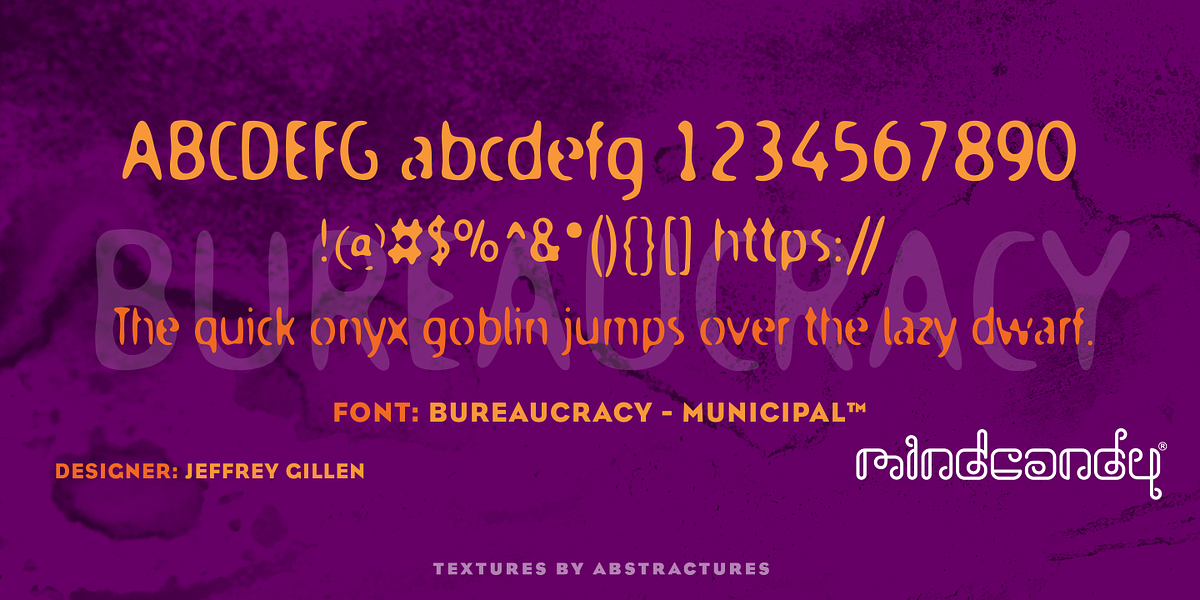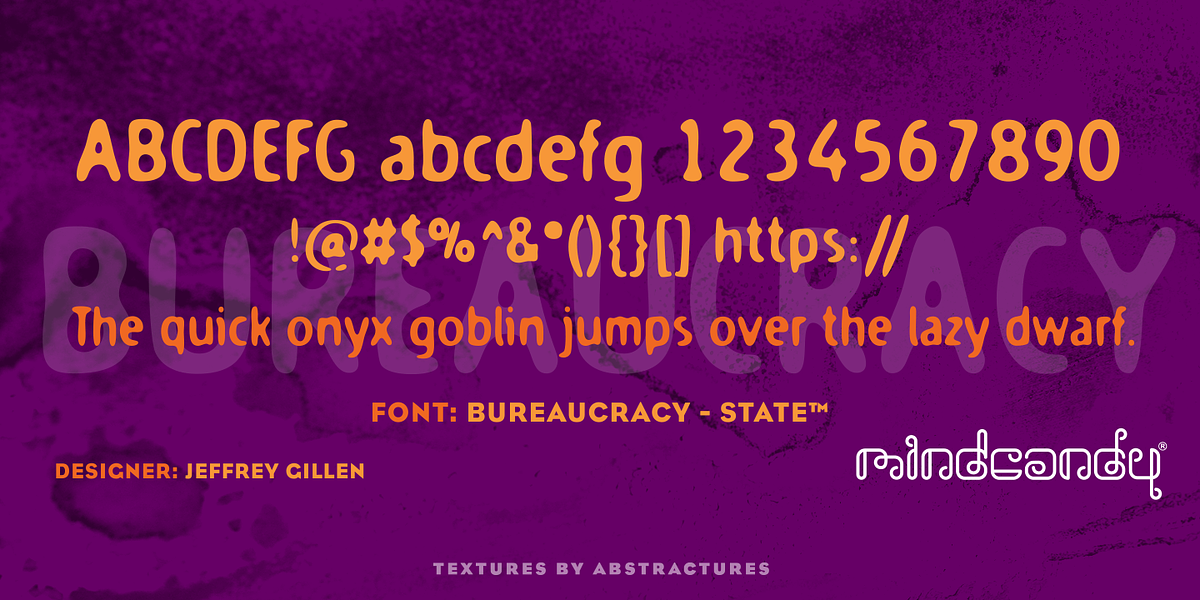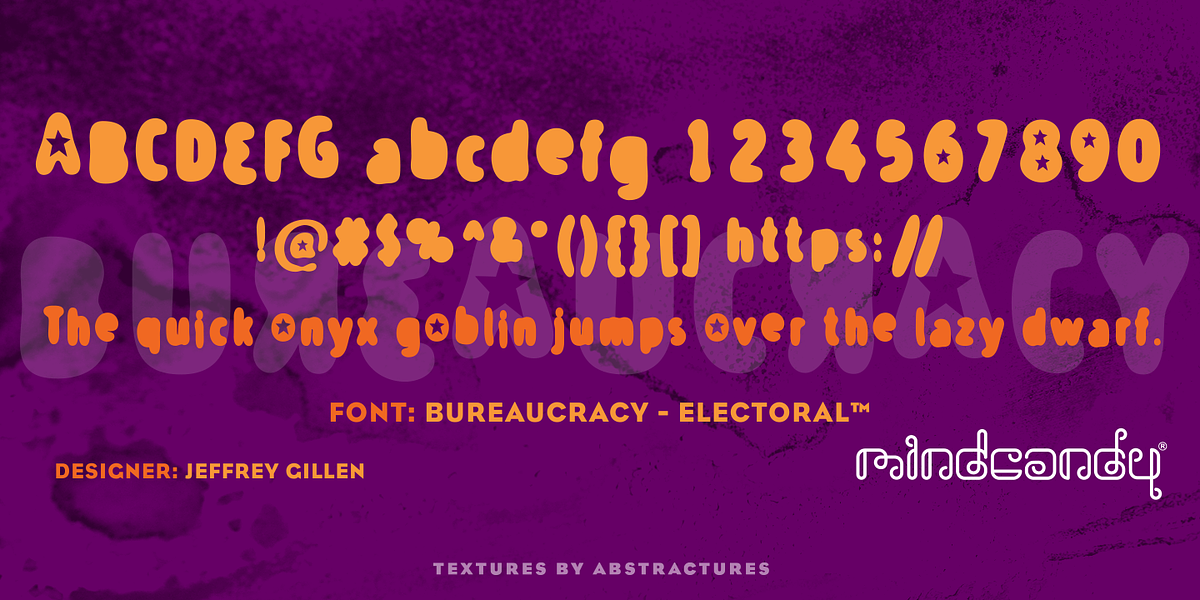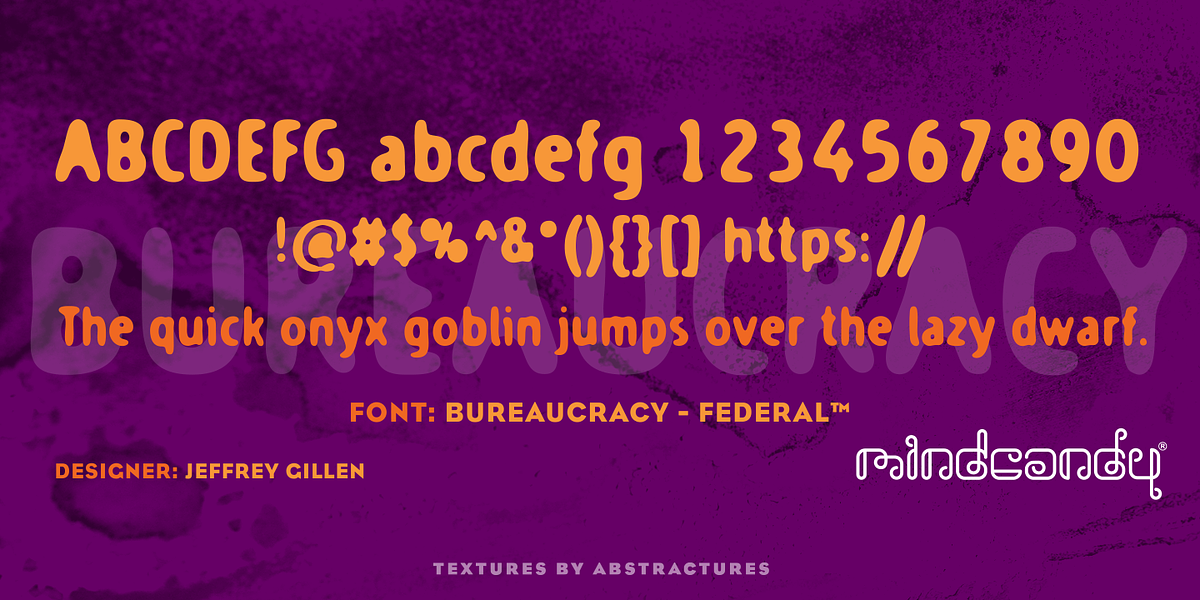
Bureaucracy™
Bureaucracy™ is a typewriter-inspired font family designed by Jeff Gillen. It consists of four fonts: Municipal, State, Federal, and Electoral, each named to evoke different levels of bureaucratic institutions. The font's rough aesthetic aims to convey the frustration and sense of formality inherent in interacting with governmental systems.